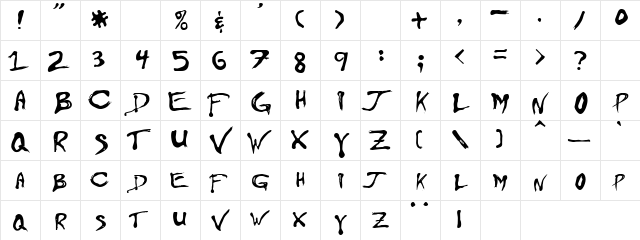
Hitler Regular
Design Context for Hitler Typeface
Hitler is a composed and adaptable typeface that performs quietly and consistently across a wide range of design contexts.